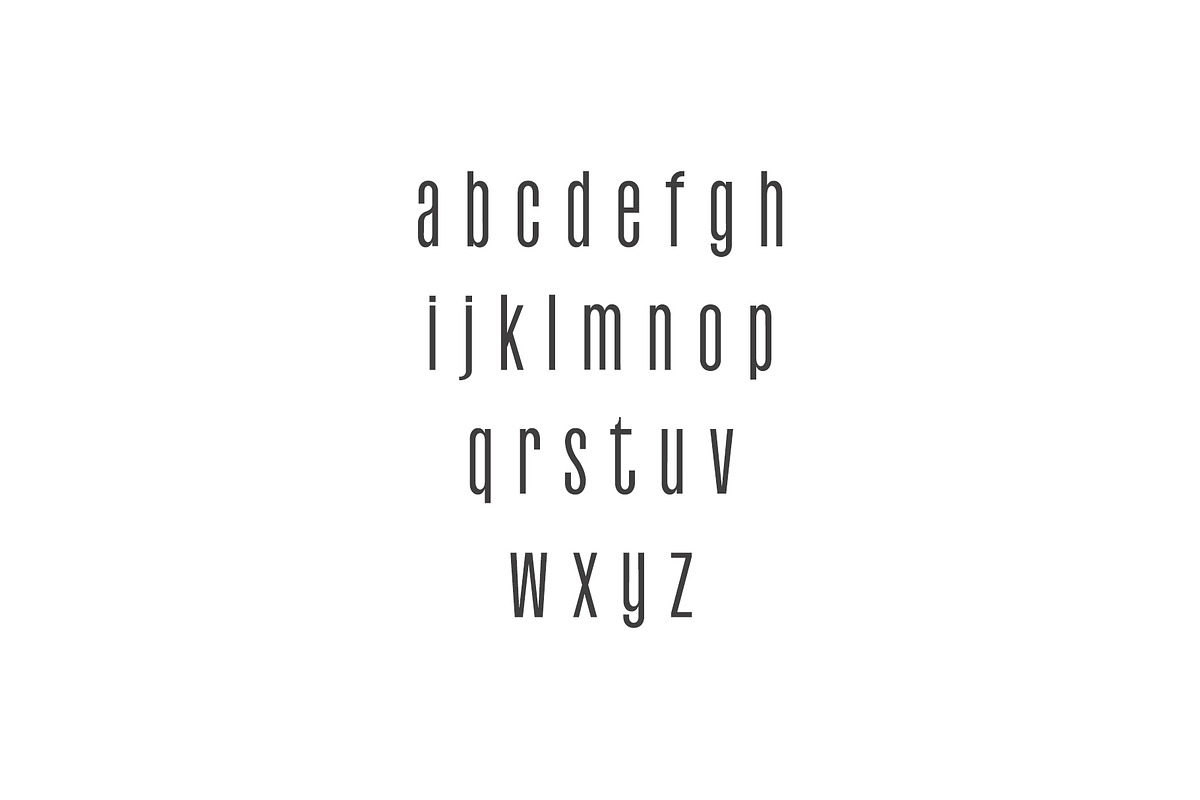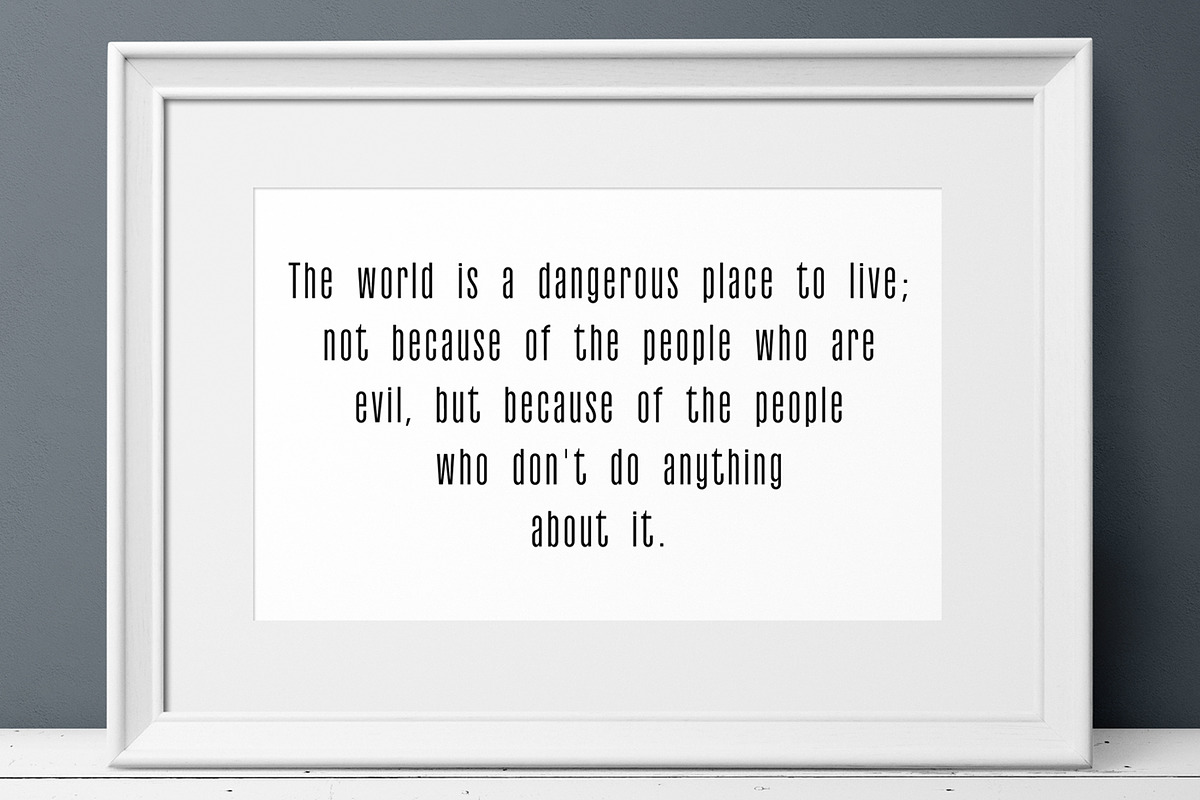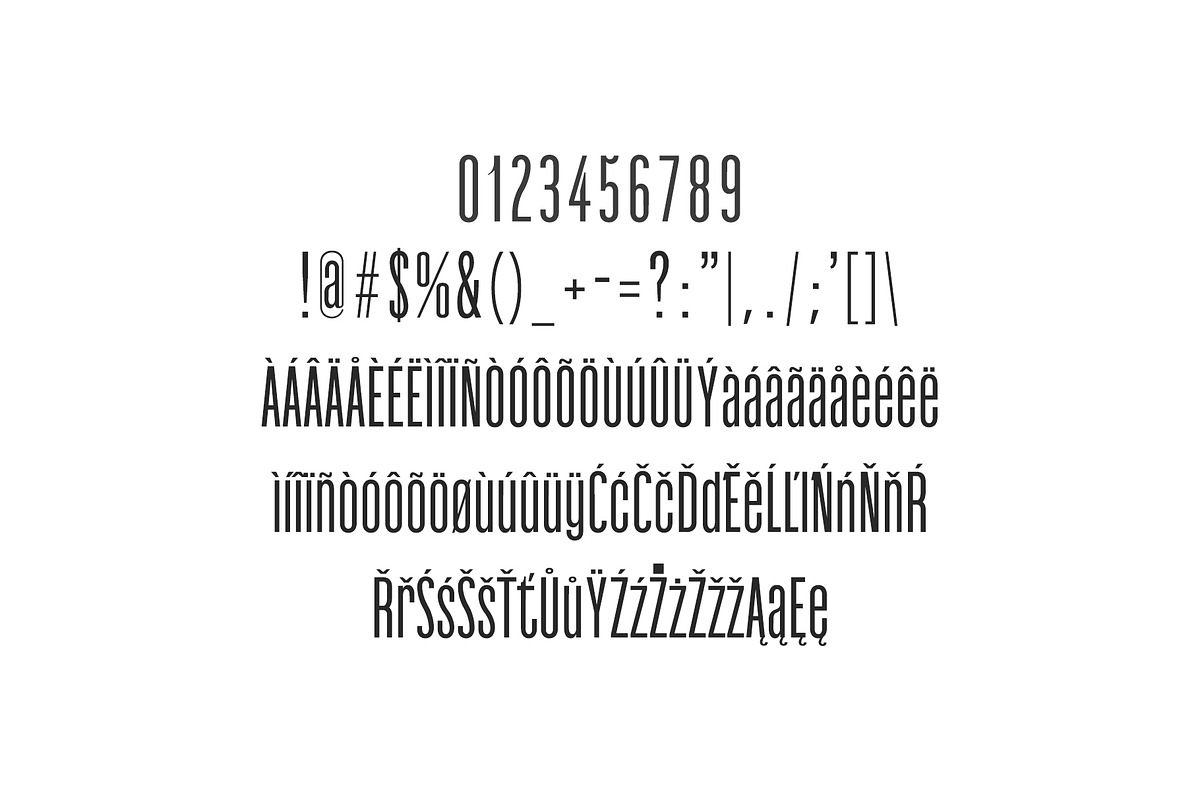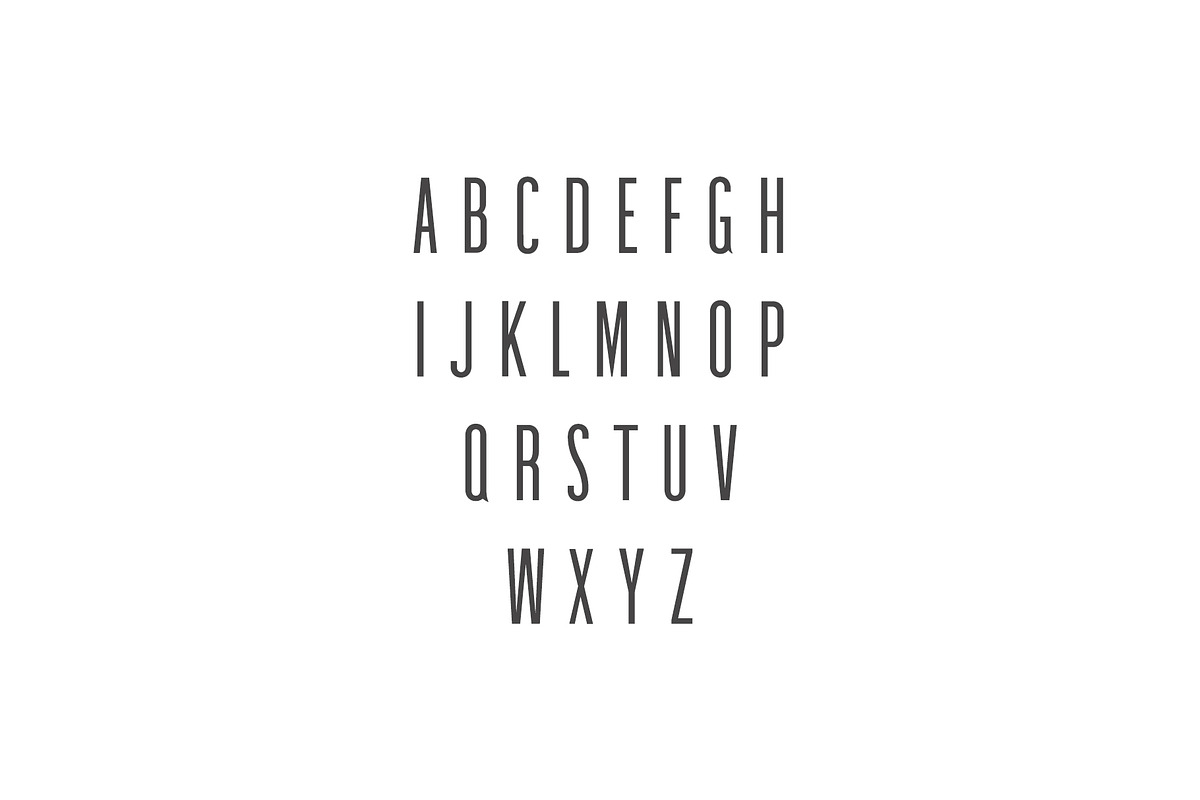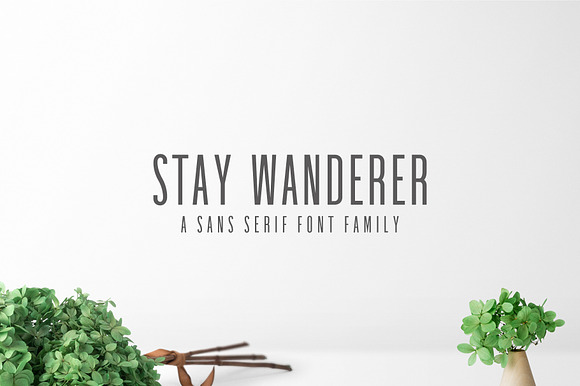
Stay Wanderer 3 Font Family Pack
Stay Wanderer 3 Font Family Pack features unique and modern serif look and feel. Perfect for gorgeous logos, titles, web layouts and branding. It looks gorgeous in all caps with a wide-set spacing if you want to try a classy look, or beautiful on its own in capital and lowercase letters for something completely timeless.
Font Weight: Regular, Thin and Bold
Stay Wanderer Font Features:
Non English Characters ( Latin Supplement + Latin Extended A )
- Font Weight: Regular, Thin and Bold